37 Best Premium Sans Serif Fonts for Pro Designers in 2026
Choosing the right typeface is essential for any high-end project, and our list of 37 premium sans serif fonts highlights the best options available for your 2026 designs. Unlike standard free fonts, these professional typefaces offer superior legibility, extensive stylistic alternates, and the refined aesthetics required for modern branding. From geometric styles to humanist cuts, these paid font assets will help you achieve a sophisticated look that captures attention and maintains readability across all digital and print platforms.
1. Sans Serif Bundle Collection Font
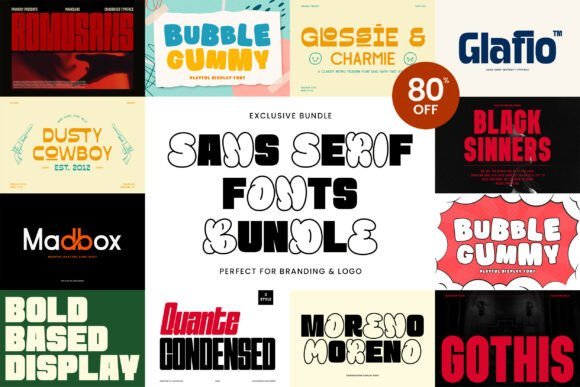
This comprehensive toolkit represents a strategic investment for designers looking to expand their typographic library with high-quality assets. By bundling eight distinct premium sans serif fonts—including the elegant Glossie & Charmie and the robust Gothis—this collection offers a wide spectrum of weights and personalities. Whether you are navigating the intricate demands of corporate identity or the expressive needs of high-end editorial design, these typefaces ensure your layouts maintain a professional edge while benefiting from cohesive aesthetic principles and modern sensibilities.
Beyond the sheer variety, the bundle excels in practical application across both digital and print media. Designers can leverage the playful energy of Bubble Gummy for children’s packaging or the sleek, architectural lines of Romusans for high-end tech branding. The inclusion of condensed options like Quante Condensed makes it particularly effective for space-sensitive layouts such as mobile app interfaces or dense magazine headlines. This curated selection is not just about quantity; it is about providing a versatile palette of premium sans serif fonts that solve diverse visual communication challenges with a single, unified source.
2. Minimalo Font
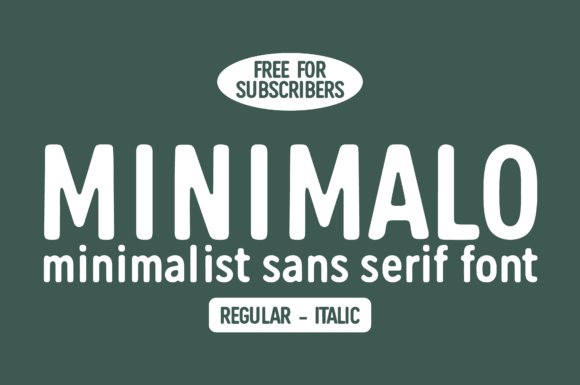
Minimalo emerges as a sophisticated solution for designers seeking a balance between clinical precision and approachable warmth. As a rounded condensed typeface, it breaks away from the harshness of traditional geometric fonts, offering soft terminals that humanize digital interfaces. This makes it an exceptional choice for modern app development and UI/UX projects where vertical space is at a premium but readability remains paramount. The typeface’s narrow footprint allows for high-impact headlines that do not sacrifice clarity, ensuring that even the most information-dense screens remain navigable and aesthetically pleasing.
In the realm of premium sans serif fonts, Minimalo stands out for its seamless transition between screen and print. Its carefully engineered kerning and consistent stroke weight provide a rhythmic flow that excels in minimalist packaging and sleek editorial spreads. When paired with its dedicated italics, the font gains a dynamic quality suitable for adding emphasis in long-form body text or active marketing slogans. Tech startups and lifestyle brands will find its contemporary silhouette particularly effective for establishing a brand voice that feels both innovative and inherently trustworthy.
3. Clostha Font
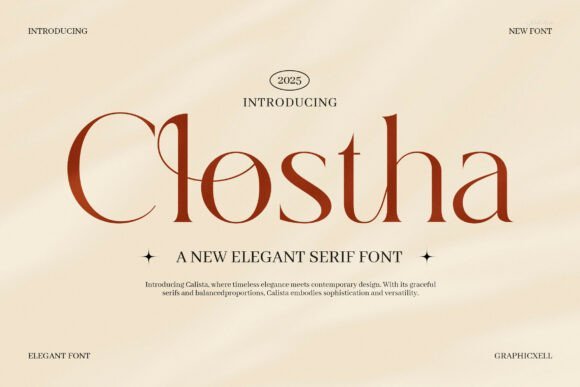
Clostha Font introduces a layer of luxury and high-contrast sophistication to any typographic hierarchy. While it carries the traditional markers of a serif, its sharp lines and modern construction make it a perfect companion when paired with premium sans serif fonts in a dual-typeface branding system. The font’s architecture is defined by dramatic transitions between thick and thin strokes, creating a visual rhythm that commands attention on fashion magazine covers, high-end invitations, and premium product packaging. It is designed to be showcased at large scales, where its intricate ligatures and refined curves can truly captivate the viewer.
For creative directors aiming to establish a sense of heritage without feeling dated, Clostha offers a bridge between classical elegance and contemporary minimalism. It excels in environments where brand authority is key, such as boutique hotel identities or editorial mastheads. By integrating this typeface alongside cleaner, functional fonts, designers can achieve a balanced look that is both legible and emotionally resonant. Its extensive language support and OpenType features provide the technical flexibility required for global branding campaigns, making it a versatile tool for high-stakes visual storytelling.
4. Mefons Font
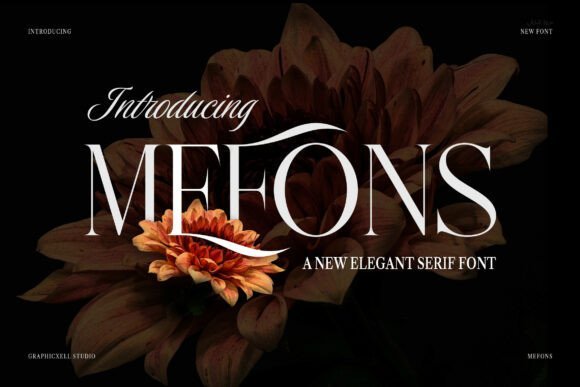
Mefons is a masterclass in high-contrast typography, offering a sophisticated blend of traditional elegance and modern fluidity. While primarily a serif face, it serves as an essential stylistic counterpoint to clean, premium sans serif fonts in complex editorial layouts and brand systems. Its architectural structure is defined by sharp transitions and delicate terminals, making it an ideal choice for luxury branding where every character needs to communicate a sense of prestige and timelessness. The sweeping ligatures and soft curves allow designers to craft headings that feel organic yet strictly professional.
Designers looking to elevate their visual identity will find Mefons indispensable for headlines and logotypes that require an artistic edge. Beyond its visual charm, the font is PUA-encoded, providing seamless access to a vast library of alternates and swashes that allow for custom-tailored typographic expressions. Whether used for high-fashion lookbooks or refined digital experiences, this typeface bridges the gap between classical artistry and contemporary design demands, ensuring your work remains distinct and memorable across both digital and physical media.
5. Massive Geometric Bundle Fonts
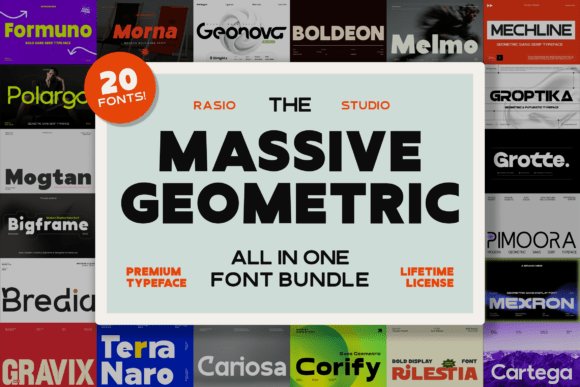
The Massive Geometric Bundle represents a comprehensive toolkit for designers who prioritize structural integrity and mathematical precision in their layouts. Featuring a collection of twenty distinct typefaces, this set explores the full spectrum of geometric design—from razor-thin weights perfect for minimalist interfaces to heavy, impactful cuts for environmental signage. Each typeface within this curated collection is engineered for maximum legibility, making it one of the most versatile resources for those building a library of premium sans serif fonts that can handle everything from corporate identities to tech-focused UI design.
What sets this bundle apart is the consistent internal logic shared across all twenty fonts, allowing for seamless mixing and matching within a single brand ecosystem. The balanced proportions and circular foundations provide a sense of stability and modernism that is essential for contemporary digital products. By utilizing these high-performance assets, creators can maintain a professional aesthetic across various platforms, ensuring that whether a message is displayed on a mobile screen or a large-scale billboard, it retains its clarity and stylistic authority without compromise.
6. Simple Minimalist Font
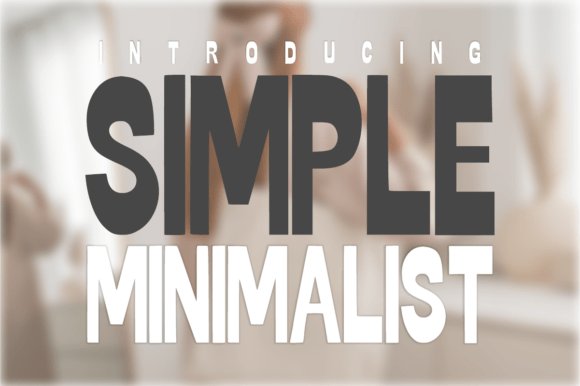
Simple Minimalist is a striking display face that commands attention through its verticality and condensed architecture. It eschews unnecessary ornamentation in favor of a heavy, bold presence that resonates with the aesthetics of high-end fashion and urban streetwear. Unlike many other premium sans serif fonts that aim for neutral transparency, this typeface makes a definitive statement with its high-contrast lines and tall letterforms, making it an excellent candidate for magazine mastheads, social media quotes, and edgy editorial headers that need to pierce through visual noise.
Beyond its immediate visual impact, the font is crafted with technical precision, featuring ultra-clean edges that translate perfectly to physical applications like vinyl cutting or garment printing. This technical cleanliness makes it a favorite for merchandise designers and brand specialists who require a font that is as robust as it is stylish. Its ability to maintain readability despite its extreme weight and condensed width ensures that your core message remains accessible, while its sophisticated silhouette adds an immediate layer of urban professionalism to any creative endeavor.
7. Morena Font
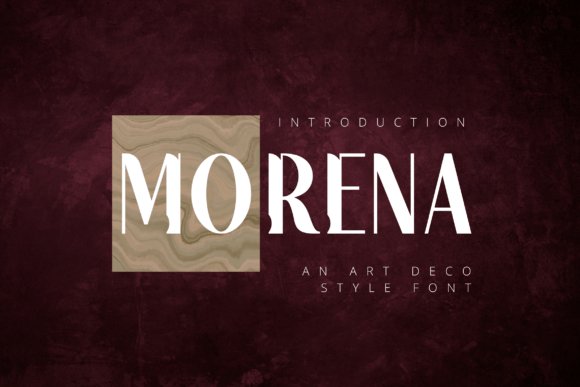
Morena Font stands out as a quintessential example of contemporary elegance, blending soft humanist touches with a clean, geometric structure. Its authentic character makes it a versatile asset for designers seeking premium sans serif fonts that feel both approachable and sophisticated. Whether you are crafting bespoke wedding invitations or high-fashion lookbooks, this typeface provides a refined aesthetic that bridges the gap between classic luxury and modern minimalism.
Beyond its aesthetic appeal, Morena is engineered for maximum readability across various print and digital mediums. It excels in branding materials and business cards where clarity is paramount, yet its unique personality shines through in larger display formats like posters and social media quotes. By incorporating this typeface into your toolkit, you ensure a cohesive visual identity that resonates with an audience looking for polished, trend-conscious design.
8. Novaris Font
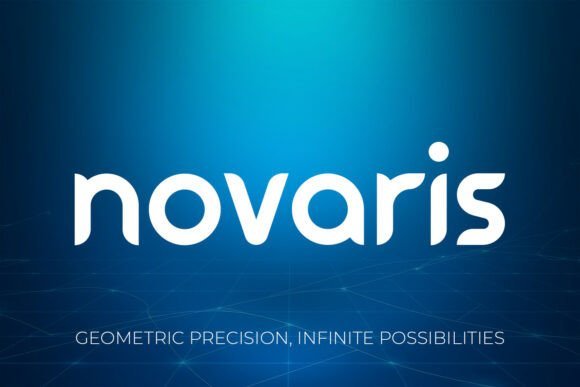
Novaris Font is a masterclass in geometric precision, offering a high-contrast blend of sharp angles and fluid, futuristic curves. As one of the more versatile premium sans serif fonts available, it transitions effortlessly from the high-octane world of gaming interfaces and tech startup logos to the serene landscape of sustainable branding. The typeface’s architecture is rooted in a minimalist philosophy, ensuring that every letterform contributes to a sleek, tech-forward aesthetic that feels both innovative and timeless.
Interestingly, the clean lines of Novaris also lend themselves beautifully to eco-centric designs and organic product lines. Its uncluttered presentation evokes a sense of purity and transparency, making it an excellent choice for environmental conservation campaigns or high-end garden service identities. This duality—the ability to appear both industrial and natural—highlights the superior craftsmanship of this luxury typeface, proving that a well-designed font can adapt to radically different industry contexts without losing its core visual impact.
9. Maddison Font
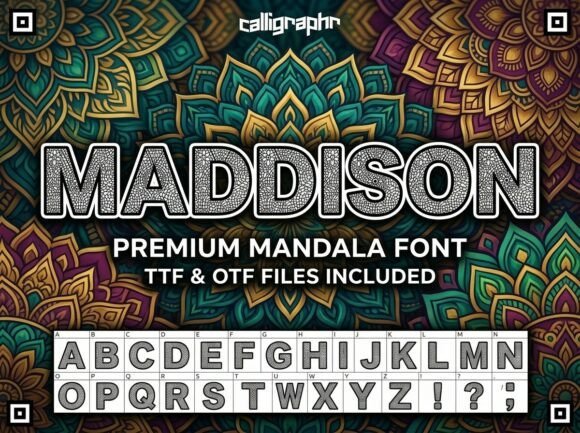
Maddison Font redefines the boundaries of decorative typography by infusing bold sans-serif structures with an intricate, hand-drawn mandala mosaic. This isn’t just a typeface; it’s a meditative art piece designed to serve as the focal point of a brand’s visual story. Among premium sans serif fonts that emphasize character, Maddison stands unique for its rhythmic geometric patterns and crisp white outlines, which create a mesmerizing texture that draws the eye inward, perfect for titles that need to convey tranquility and depth.
Ideal for the holistic wellness sector, this font is the premier choice for yoga studios, boutique tea brands, and spiritual publications looking to establish a zen atmosphere. The complexity of the mosaic within each character adds a tactile quality to digital headers and printed book covers, offering a rich sensory experience for the viewer. When utilized for high-impact social media assets or editorial headlines, Maddison communicates a sense of mindfulness and handcrafted quality that standard, plain typefaces simply cannot replicate.
10. Agatic Font
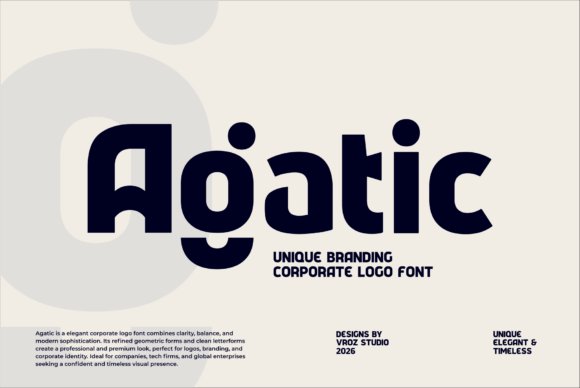
Agatic stands as a masterclass in geometric precision, offering a structural clarity that is essential for modern corporate identities. As one of the more versatile premium sans serif fonts available, it balances sharp angles with subtle curves to ensure that high-resolution digital displays and traditional print materials remain equally legible. This typeface isn’t just about looking clean; it’s about projecting a sense of stability and technological advancement that creative studios and tech startups often demand.
Beyond its aesthetic appeal, Agatic provides a robust toolkit for global branding through its extensive multilingual support and curated ligatures. Designers looking to build a cohesive visual system will find its weights adaptable for both dense UI environments and expansive billboard advertising. By prioritizing visual balance and rhythmic spacing, Agatic allows brands to communicate with a confident, authoritative voice that feels both contemporary and enduringly professional.
11. Balverio Font
While often categorized by its sharp serifs, Balverio serves as the ultimate high-contrast companion to a library of premium sans serif fonts, providing the necessary visual tension for sophisticated editorial layouts. Its refined proportions and razor-thin details are specifically engineered for display purposes, making it an ideal candidate for luxury mastheads and high-fashion branding. Every character exudes a sense of prestige, ensuring that the first impression is one of unwavering confidence and expensive craftsmanship.
For designers working on large-scale advertising or boutique packaging, Balverio offers a distinct personality that commands attention without overwhelming the viewer. It shines brightest when used in minimalist settings—think white space, high-quality photography, and limited copy—where its architectural beauty can be fully appreciated. Whether you are crafting a social media campaign for a premium product or a sleek magazine spread, this font provides the professional edge required to make a design feel truly exclusive.
12. Vosage Font
Vosage captures the essence of quiet luxury through its minimalist framework and sleek, modern lines. Unlike more aggressive typefaces, this premium sans serif font relies on its flawless proportions and open apertures to convey elegance and sophistication. It is designed for those who believe that less is more, providing a polished aesthetic that allows the surrounding content to breathe and remain the focal point of the composition.
In practical application, Vosage is remarkably effective for high-end skincare branding, digital lookbooks, and luxury real estate portfolios. Its understated nature ensures that it never competes with the imagery, yet its distinct character remains memorable in its own right. By choosing Vosage, designers can achieve a level of modern professionalism that feels effortless, making it a staple choice for projects where a high-end, contemporary visual experience is the primary goal.
13. Caveline Font
Caveline is a masterclass in minimalist luxury, meticulously crafted to serve designers seeking a refined aesthetic for high-end creative ventures. This premium sans serif font distinguishes itself through exceptionally clean lines and balanced proportions that evoke a sense of quiet sophistication. Its modern architecture makes it an ideal candidate for luxury branding projects, where the goal is to project an image of effortless elegance. Whether applied to a high-fashion editorial spread or a bespoke skincare identity, Caveline provides the visual clarity needed to communicate prestige without overwhelming the viewer’s eye.
Functionally, the typeface is highly versatile, offering full support for both uppercase and lowercase characters, alongside precise punctuation and numerals. Its streamlined design ensures legibility across various mediums, from the tactile surface of premium packaging to the high-resolution demands of modern digital layouts. For professionals building a visual identity for wedding stationery or luxury invitations, this font acts as a foundational element that bridges the gap between contemporary minimalism and timeless style, making every piece of text feel like a bespoke work of art.
14. Geometrica Font
The Geometrica collection represents a comprehensive toolkit for fans of Swiss-inspired typography, offering a curated set of four distinct minimalist typefaces: KIME, ROMEL, BERLIN, and ELITE. This collection is rooted in the principles of the grotesque style, focusing on objective clarity and geometric precision. By utilizing this suite of premium sans serif fonts, designers can maintain a cohesive visual language across complex projects, utilizing the included regular and italic weights to create hierarchy and contrast in editorial layouts or corporate identity systems.
What sets Geometrica apart is its commitment to visual balance and high credibility. Each character is designed with a specific mathematical rigor that lends a professional air to high-end cosmetics packaging, architectural websites, and technical documentation. It is particularly effective for web design where readability is paramount, yet a sense of high-fashion modernism is desired. By integrating these fonts into your design workflow, you gain access to a versatile system that thrives in minimal environments, allowing the structural integrity of the letterforms to command attention through pure, unadulterated form.
15. Rubicca Font
Rubicca offers a refreshing departure from rigid geometric standards, introducing a soft, organic roundness that feels both authentic and approachable. Drawing inspiration from the natural, fluid shapes found in beach environments, this premium sans serif font brings a unique warmth to apparel design and lifestyle branding. The gently curved edges of the character set create a soothing reading experience, making it a standout choice for long-form quotes, book covers, and artisanal product packaging where a human touch is essential to the brand story.
Beyond its aesthetic charm, Rubicca is a robust functional tool featuring extensive multilingual support, including Eastern European languages. This makes it an indispensable asset for global brands that need to maintain a consistent, friendly personality across diverse markets. The typeface excels in contexts that require a blend of modern trends and timeless character, such as seasonal signage or boutique T-shirt prints. By choosing Rubicca, you are opting for a typeface that values character and texture as much as it does legibility, providing a distinct visual voice that resonates with a sense of refined craftsmanship.
16. Jenura Font
Jenura Font is a masterclass in modern serif design, blending sharp, refined edges with graceful, sweeping curves that evoke a sense of high-end fashion and editorial prestige. Unlike standard serifs, this typeface introduces a collection of striking ligatures and stylistic alternates that allow designers to customize wordmarks and headlines with an artistic flair. It is particularly effective for luxury branding where the goal is to communicate both legacy and forward-thinking innovation, making it a natural companion to minimalist layouts and high-contrast color palettes.
When utilized in professional typography, Jenura serves as an excellent anchor for magazine mastheads and boutique packaging designs. While it carries a distinct serif personality, it pairs beautifully with clean, premium sans serif fonts to establish a sophisticated typographic hierarchy. This versatility ensures that whether you are crafting a digital experience for a jewelry brand or a printed lookbook for a creative agency, the font maintains its legibility and commanding presence across various media formats.
17. Andragogy Font
Andragogy Font offers a contemporary take on the monoline script, emphasizing a consistent stroke weight that provides a clean and balanced visual rhythm. This typeface is designed to replicate the effortless flow of a high-end signature, making it an ideal choice for digital identities, luxury hospitality branding, and bespoke wedding stationery. Its delicate connections and airy letterforms create an approachable yet sophisticated aesthetic that avoids the clutter often found in more traditional, ornate cursive styles.
The true strength of Andragogy lies in its ability to add a human touch to rigid corporate designs. By layering this monoline script over bold, premium sans serif fonts, designers can create a compelling visual contrast that feels both professional and personal. It is highly recommended for use in social media graphics, thank-you notes, and upscale product labeling where an understated sense of luxury is required to resonate with a discerning, modern audience.
18. Golie Font
Golie Font is a premier example of a luxury-tier sans serif, specifically engineered to meet the demands of the fashion, beauty, and cosmetic industries. Its architecture is built upon clean lines and perfectly balanced proportions, resulting in a typeface that feels inherently feminine yet structurally powerful. The font strips away unnecessary ornamentation to focus on geometric purity, providing a crisp, modern aesthetic that ensures brand names look timeless and authoritative on everything from skincare jars to digital storefronts.
This typeface excels in environments where readability and minimalist elegance are paramount. As a standout choice among premium sans serif fonts, Golie is optimized for high-visibility applications like subheadings, website navigation, and editorial body copy. Its refined spacing and neutral yet chic character allow it to act as a versatile foundation for any branding project that seeks to convey a sense of boutique exclusivity and polished professionalism.
19. Solvetica Font
Solvetica Font stands out as a quintessential example of high-end Swiss-inspired design, meticulously engineered to provide a neutral yet sophisticated foundation for any typographic project. As a standout choice among premium sans serif fonts, it offers an expansive range of weights, from a delicate thin to a commanding bold italic, ensuring that visual hierarchies remain consistent across complex editorial layouts and dense information environments. Its geometric precision and generous kerning make it particularly effective for high-density information displays where clarity is the absolute priority.
Designers looking for a reliable workhorse for corporate identity systems will appreciate Solvetica’s rhythmic balance and open counters. Beyond the screen, this typeface translates beautifully to physical media, maintaining its crisp edges in print advertisements and high-end packaging. It bridges the gap between classic modernist aesthetics and contemporary digital needs, making it a staple for anyone building a robust brand toolkit that requires long-term legibility and an air of professional authority.
20. Auristela Font
Auristela Font introduces a softer, more organic approach to the world of premium sans serif fonts, blending modern minimalism with a distinctively human touch. Unlike the rigid, industrial structures found in many contemporary families, Auristela features subtle curves and an approachable character that feels personalized and authentic. This makes it an exceptional choice for boutique branding projects, artisanal product packaging, and high-end social stationery where a welcoming yet professional atmosphere is the primary goal.
The font excels in lifestyle-centric applications, such as elegant wedding invitations or bespoke greeting cards, where the typography needs to convey warmth without sacrificing modern clarity. Its versatility extends into the digital realm as well, providing a refreshing alternative for lifestyle blog headers and social media graphics that aim for an airy, sophisticated aesthetic. By utilizing its well-spaced letterforms, designers can create layouts that invite the viewer in while maintaining a high level of visual polish and contemporary flair.
21. Valtora Font
Valtora Font is a powerhouse of typographic flexibility, offering a comprehensive suite of nine distinct weights that range from a whisper-thin hairline to a dense, impactful black. This expansive family is specifically tailored for the technical rigors of modern UI/UX design, where precision must meet aesthetic appeal. Its neutral personality allows it to function as a silent partner in digital products, ensuring that the interface remains intuitive and the content remains the primary focus of the user experience without visual distraction.
In the competitive landscape of premium sans serif fonts, Valtora distinguishes itself through its impeccable scaling; it remains perfectly legible as micro-copy in mobile applications while possessing enough architectural character to dominate a large-scale exhibition poster. The family’s structural integrity is built for longevity, making it a wise investment for long-term corporate identity projects and complex web platforms that require a unified, authoritative visual voice across multiple digital touchpoints.
22. Vernina Font
Vernina stands out as a quintessential example of how premium sans serif fonts can define a brand’s visual vocabulary with grace and precision. It blends sharp terminals with balanced proportions, offering a sleekness that is often sought after in the world of high-fashion and luxury skincare. This typeface excels in scenarios where a sense of exclusivity is required, providing a sophisticated backdrop for editorial content and high-end boutique branding that needs to communicate class and restraint.
Beyond its aesthetic appeal, Vernina is engineered for clarity across digital and print mediums. Designers will find it particularly effective as a hero header on minimalist landing pages, where its airy letterspacing creates a refined “quiet luxury” atmosphere. By pairing it with soft, neutral color palettes and high-contrast fashion photography, you can establish a visual identity that feels both intellectually grounded and stylistically current for contemporary audiences.
23. Modern Rongsok Font
Modern Rongsok Font introduces a compelling high-contrast geometry to the realm of premium sans serif fonts, making it a powerful asset for urban-inspired projects and high-impact layouts. Its unique stylistic flares and sharp lines evoke a sense of contemporary chic that transitions seamlessly from high-fashion editorial spreads to the branding of luxury metropolitan cafes. This typeface is not just about legibility; it’s about making a distinct statement through refined, bold character forms that demand the viewer’s focus.
When applied to large-scale formats like storefront signage or minimalist logos, Modern Rongsok commands attention without overwhelming the surrounding design elements. The font thrives when surrounded by generous white space, allowing its architectural integrity and urban aesthetic to shine. For creative directors aiming to capture a sophisticated “metropolitan” vibe, this font serves as a versatile tool that balances artistic expression with the functional requirements of modern lifestyle photography.
24. Sans Serif Bundle Collection Font
The Sans Serif Bundle Collection Font package is an essential resource for designers who require a diverse range of premium sans serif fonts to tackle complex commercial identities and diverse marketing materials. Inspired by the geometric precision of modern corporate architecture, each of the eight styles in this set offers a unique weight and personality. From authoritative extended faces for heavy branding to sleek, high-energy condensed versions for mobile UI, the collection provides the versatility needed to build a cohesive brand system for forward-thinking startups.
Investing in a curated bundle like this ensures that your typographic palette is consistent yet flexible enough for multi-channel campaigns. These fonts are engineered for dominance in competitive markets, whether you are designing heavy-duty commercial collateral or clean, functional digital interfaces. By having access to such a broad spectrum of typographic styles, designers can maintain a high-end aesthetic across various touchpoints, ensuring that every piece of communication feels polished and professionally executed.
25. Mirano Extended Font
Mirano Extended is a high-performance typeface that bridges the gap between industrial automotive history and modern interface design. Taking its visual cues from the legendary lettering of iconic German off-road vehicles, this font reimagines the rigid, engineered logic of Aldo Novarese’s Eurostile through a wider, more expansive lens. The result is a family of premium sans serif fonts that exudes mechanical stability and forward momentum. Each weight, from Light to Bold, features a meticulously crafted italic counterpart that preserves the Roman’s compact efficiency while introducing a sense of velocity and technical precision.
For designers working within the spheres of high-tech branding, aerospace, or luxury automotive sectors, Mirano Extended offers a commanding presence. Its wide-track stance provides exceptional legibility in header layouts, while the extensive OpenType features—including case-sensitive glyphs and specialized stylistic sets—allow for granular control over the rhythm of the text. Whether you are building a complex design system for a mobile app or a high-impact billboard campaign, this typeface provides a robust, engineered aesthetic that feels both nostalgic and futuristic.
26. Skinova Font
Skinova represents the intersection of organic softness and high-fashion sophistication, making it a standout choice for projects that require a touch of natural elegance. Unlike more rigid geometric styles, this typeface features unique high-contrast strokes and gentle curves that evoke the fluid lines of contemporary cosmetic packaging and luxury editorial layouts. It is specifically designed to function as one of those premium sans serif fonts that can anchor a brand’s visual identity, offering a balanced proportion that ensures clarity in both large-scale display work and more intimate body copy.
This typeface is particularly effective for lifestyle brands, wedding stationery, and high-end retail environments where a sense of approachability is just as important as a premium feel. Its clean lines and minimalist structure allow it to pair beautifully with lush photography and negative space, making it a favorite for social media grids and digital lookbooks. Skinova provides a timeless aesthetic that moves away from the sterile nature of many modern sans serifs, instead offering a warm, luxurious personality that invites the reader in.
27. Bodon Font
Bodon is a masterclass in delicate, high-contrast typography, blending the traditional elegance of a Didone with the modern accessibility of a sans serif structure. Its refined thin-to-thick transitions create a rhythmic visual texture that is synonymous with upscale branding and editorial prestige. By stripping away the serifs while maintaining the dramatic stroke variance, Bodon achieves a sleek, minimal look that feels incredibly current yet deeply rooted in classic design principles. This makes it an ideal selection for designers seeking premium sans serif fonts that command attention through subtlety rather than bulk.
Available in both Regular and Italic styles, Bodon excels in contexts where visual hierarchy and grace are paramount. It is the perfect companion for luxury perfume packaging, boutique hotel identities, or high-end fashion magazine spreads. The font’s balanced proportions ensure that even at smaller sizes, its sophisticated character remains legible, though it truly shines when used for striking headlines and logo marks. For any visual identity looking to convey an aura of exclusivity and modern luxury, Bodon provides a polished, professional solution.
28. Discuss Studies Font
Discuss Studies Font breaks away from traditional boundaries by offering a geometric, futuristic aesthetic that is tailor-made for tech-focused industries. As one of the most versatile premium sans serif fonts in this collection, it utilizes sharp, clean lines and distinct geometric details to create a sense of forward-thinking innovation. Whether you are crafting a brand identity for a silicon-valley startup or designing a high-tech magazine spread, the sheer variety of OpenType features ensures that your typography feels customized rather than cookie-cutter.
What truly separates this typeface from standard options is the inclusion of over 100 ligatures and alternates, providing an incredible range of creative flexibility for logos and book titles. The balance between its futuristic vibe and extreme legibility makes it a standout choice for digital interfaces where clarity is paramount. By integrating these premium sans serif fonts into your design workflow, you gain access to a tool that supports extensive language coverage, making it ideal for global brands looking to maintain a consistent, modern aesthetic across multiple markets.
29. Flogst Font
While Flogst Font leans into its elegant serif roots, it represents the high-end sophistication often sought by those who browse premium sans serif fonts for clean, minimalist layouts. This typeface is defined by its artistic flair and refined proportions, featuring smooth curves and high-contrast strokes that demand attention in luxury branding and editorial work. It serves as a perfect visual counterpoint to a minimalist layout, adding a layer of exclusivity to fashion labels and boutique advertising where a polished, upscale aesthetic is required.
The beauty of Flogst lies in its fluid ligatures and stylish alternates, which allow designers to treat text as a decorative element. When paired with sleek premium sans serif fonts, this typeface creates a compelling typographic hierarchy that works exceptionally well for high-end packaging and web headers. Its blend of timeless elegance and contemporary style ensures that it remains legible despite its expressive nature, making it a reliable choice for designers who want to elevate their projects with a sense of curated, artisanal quality.
30. Fringk Font
Fringk Font is a masterclass in refined luxury, designed for creatives who need a display typeface that communicates prestige and charm. Its sharp terminals and balanced contrast provide a sense of authority that is often missing from standard fonts, making it a top-tier choice for wedding stationery and editorial pieces. For designers who frequently utilize premium sans serif fonts for body text, Fringk offers the perfect high-contrast partner for headlines, creating a sophisticated look that is both modern and classical.
This font excels in environments where visual impact is just as important as readability, such as luxury product labels and fashion lookbooks. The polished letterforms flow effortlessly, allowing for a seamless transition between print media and digital screens. By incorporating Fringk into your branding suite, you ensure a bespoke feel that resonates with upscale audiences. Its versatility allows it to stand alone as a powerful logo mark or to work in tandem with minimal premium sans serif fonts to define a brand’s unique visual voice.
31. Vetto Font
Vetto Font stands out as a premier choice for designers seeking to convey elegance and grace through typography. As one of the most distinctive premium sans serif fonts available for high-end branding, it features refined proportions and clean, minimalist lines that resonate with the luxury fashion and beauty sectors. This typeface is specifically engineered to provide a sophisticated aesthetic for boutique identities, where every curve and stroke must communicate exclusivity and modern femininity.
Beyond its visual appeal, Vetto offers a functional clarity that makes it ideal for digital storefronts and printed lookbooks alike. Its balanced weight ensures that it remains legible across various mediums, from delicate makeup packaging to bold storefront signage. When you need a typeface that speaks the language of luxury without overwhelming the design, Vetto provides the perfect structural foundation for a polished, professional brand identity.
32. Aumanua Font
Aumanua Font bridges the gap between mid-century nostalgia and contemporary minimalism, offering a unique visual rhythm that is both stable and inviting. This retro-inspired addition to the world of premium sans serif fonts prioritizes geometric harmony and smooth transitions, making it an excellent candidate for editorial layouts and high-impact posters. Its quiet confidence allows it to command attention on a page without the need for excessive ornamentation, relying instead on its intentional structure and timeless appeal.
For designers working on corporate identity systems or artisanal packaging, Aumanua delivers a sense of authority and permanence. The font’s versatile nature means it functions equally well in large-scale headlines and smaller, more intimate branding details. By utilizing this typeface, you can infuse your projects with a sense of curated history while maintaining the crisp, sharp edges required for modern professional standards.
33. Asiatiyca Font
Asiatiyca Font is a versatile powerhouse designed to meet the diverse needs of modern graphic designers and content creators. It moves away from the rigid coldness often found in traditional typefaces, offering instead an authentic and approachable character that works beautifully for invitations, greeting cards, and personalized branding materials. As a flexible entry among premium sans serif fonts, its clean letterforms provide a neutral yet characteristic backdrop for everything from business cards to inspirational social media quotes.
The true strength of Asiatiyca lies in its adaptability across various creative contexts; it maintains its legibility and charm whether it is used in a minimalist digital layout or a texture-heavy print design. This font is particularly effective for projects that require a human touch while still adhering to a professional, streamlined aesthetic. It is an essential tool for anyone looking to build a visual narrative that feels grounded, accessible, and thoroughly contemporary.
34. Old Beginner Font
Old Beginner Font masterfully bridges the gap between mid-century nostalgia and contemporary clarity. It features meticulously structured capital letters that carry a certain weight of authority, making it an ideal candidate for branding projects that require a sense of legacy without feeling dated. This typeface excels in environments where texture and form take center stage, offering designers a versatile tool for high-end packaging or distinctive logo marks that demand a tactile, heritage-inspired feel.
As a standout entry among premium sans serif fonts, Old Beginner thrives on its unique balance of geometric precision and subtle vintage warmth. Its intuitive spacing and clean proportions allow it to maintain readability across various mediums, from printed stationery to high-resolution digital banners. By utilizing this font, you are not just choosing a set of characters; you are adopting a sophisticated visual language that speaks to both history and modern innovation simultaneously.
35. The Lonely Font
The Lonely Font presents a striking interpretation of modern editorial style, focusing on sharp angles and an airy, spacious feel. This typeface is specifically engineered for display purposes where every character needs to command attention, such as high-fashion magazine headers or fashion-forward editorial spreads. Its aesthetic is deeply rooted in contemporary chic, providing a polished look that feels both exclusive and welcoming to a discerning audience.
For creatives seeking premium sans serif fonts that break away from standard geometric norms, The Lonely offers an intricate architectural quality. Each letter is crafted with a focus on visual rhythm, ensuring that long headlines flow naturally while maintaining a high-impact presence. It serves as a brilliant choice for digital interfaces or high-gloss print media where the primary goal is to create a memorable, luxurious reader experience through bold typography.
36. Nakata Font
Nakata Font is the personification of minimalist luxury, defined by its exceptionally clean lines and harmonious weight distribution. Designed specifically for high-end corporate identity and luxury retail branding, it avoids unnecessary flourishes in favor of pure, functional elegance. The result is a typeface that feels effortless yet powerful, providing a stable foundation for any brand that values clarity and premium positioning above all else.
In the competitive landscape of premium sans serif fonts, Nakata distinguishes itself through its timeless appeal and flawless legibility. Whether it is used for subtle body copy in a brand book or as a bold statement on a sleek website hero section, its balanced proportions ensure a professional and cohesive aesthetic. It is an essential asset for designers who need a reliable, high-quality sans serif that complements diverse visual styles without overshadowing the core message.
37. Sans Serif Classic Font
Sans Serif Classic Font redefines the standard for refined typography by blending high-contrast letterforms with a distinctly mid-century editorial aesthetic. As a standout choice among premium sans serif fonts, it features rhythmic, sharp-tapered terminals that lend a sense of precision and architectural grace to any layout. This typeface doesn’t just display text; it commands attention through balanced geometric proportions, making it an essential asset for designers looking to bridge the gap between vintage elegance and contemporary high-fashion branding.
Its versatile nature excels in environments where authority and luxury must coexist. We recommend Sans Serif Classic Font for independent boutique identities, upscale lifestyle magazine mastheads, and premium cosmetic packaging where every curve and stroke needs to exude quality. Beyond print, its stately presence translates beautifully to high-impact digital content, ensuring that your social media storytelling remains as streamlined and sophisticated as your physical brand assets.
By incorporating these 37 premium sans serif fonts into your creative library, you ensure that your design work remains at the cutting edge throughout 2026. High-tier typography offers a level of polish and functionality that is worth the investment, providing your clients with exceptional visual communication. We hope this selection helps you find the perfect match for your next big project.